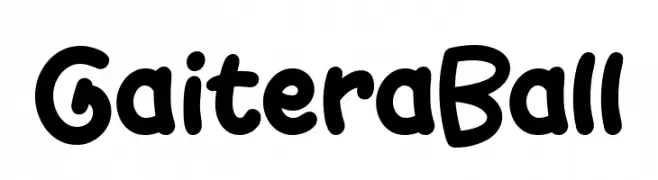
A tall, narrow font with elegant curves and a modern aesthetic.
A bold, rounded font with a modern and playful geometric style.
A bold, 3D-effect font with strong shadows and uniform width.
A classic serif font with elegant curves and strong stroke contrasts.
A bold, modern font with thick strokes and unique character shapes.
A bold, cut-up style font with sharp serifs and horizontal line detailing.
A decorative, pixelated font with a retro, mosaic-like design.
Intricate tribal tattoo designs transform each character into a unique piece of art.
A bold, dynamic font with jagged edges, ideal for energetic and modern designs.
A bold, dynamic font with horizontal line patterns for a modern, edgy look.
A futuristic, geometric font with bold, clean lines and a modern aesthetic.
A bold, 3D geometric font with a striking shadow effect.
A bold, italicized font with strong, angular lines and high contrast.
A bold, playful handwritten font with rounded, irregular characters.
A playful, handwritten-style font with consistent stroke thickness and a casual feel.
A 3D cubic font with a modern, geometric style.